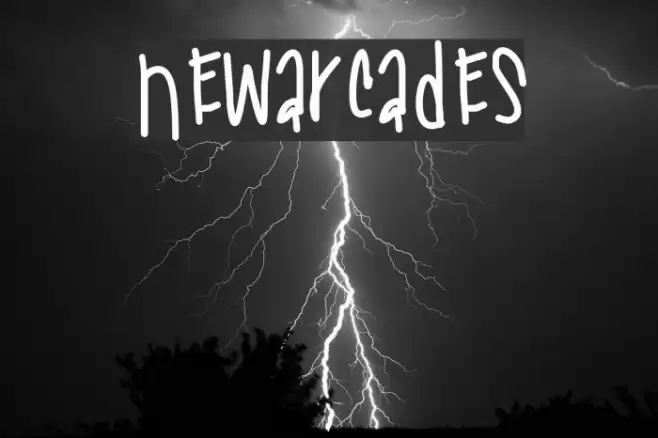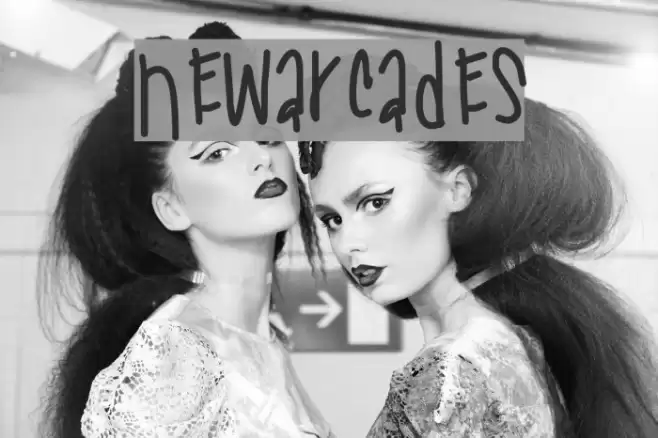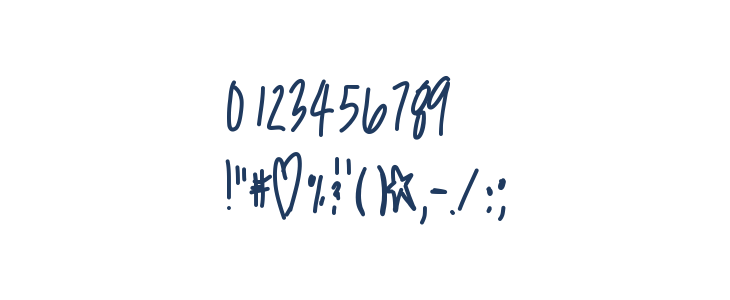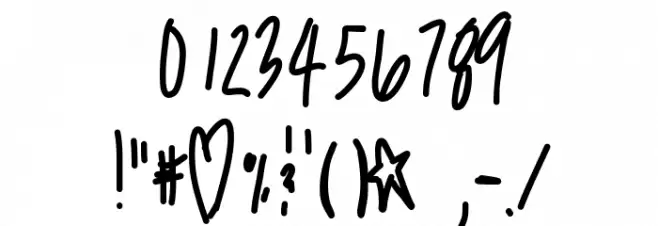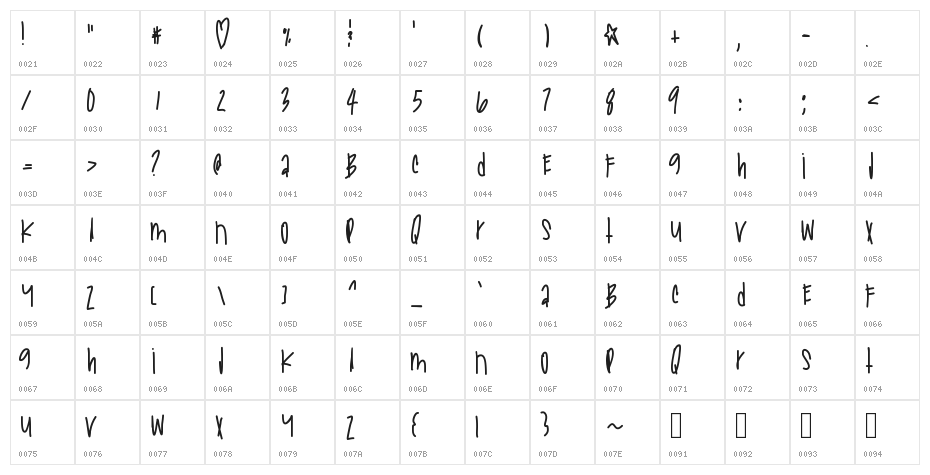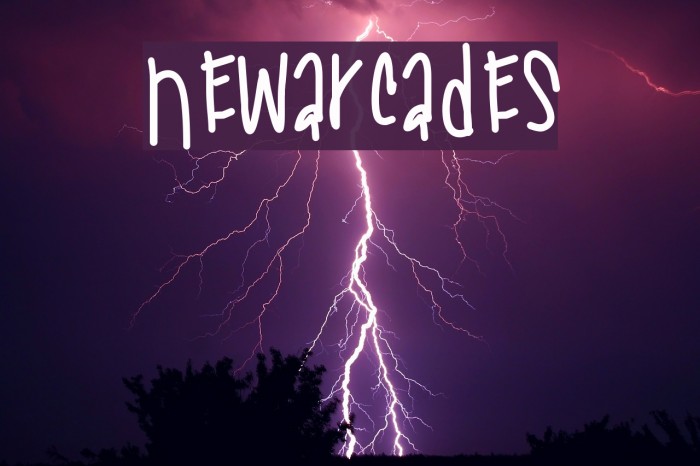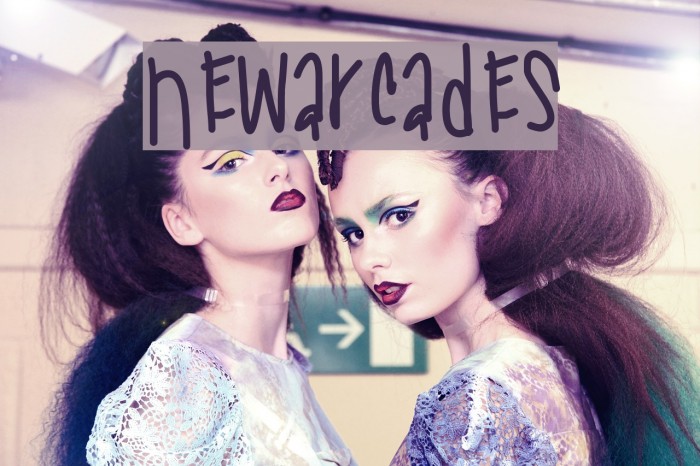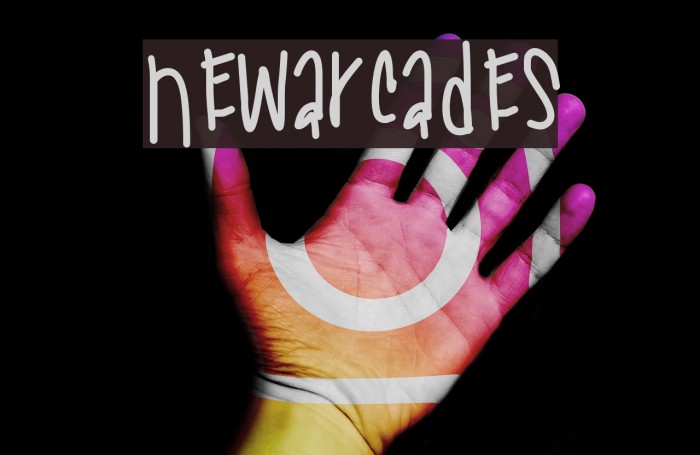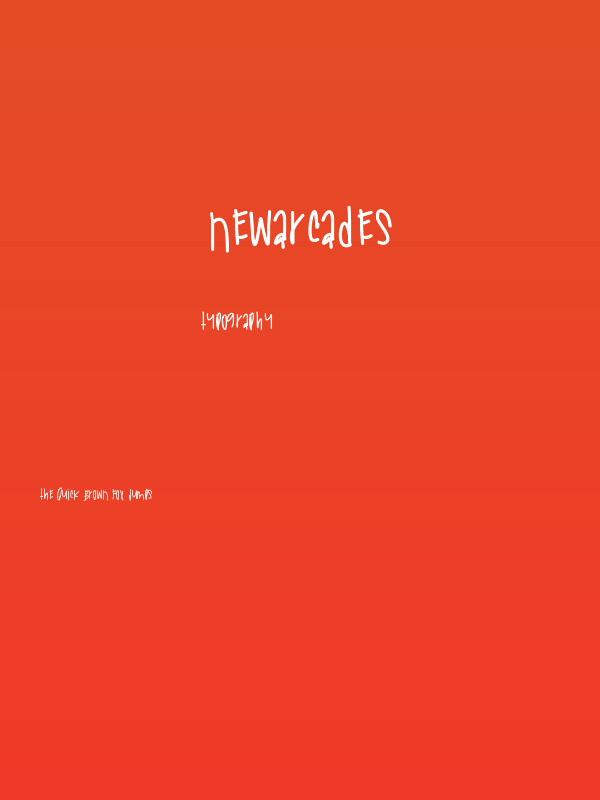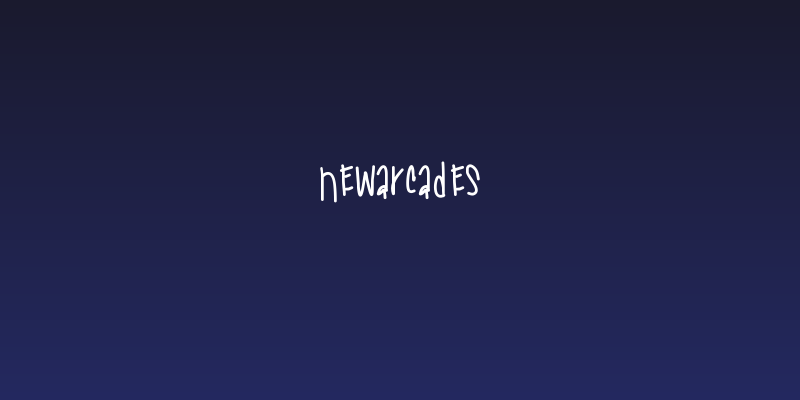
NewArcades Font
NewArcades Description
This font features a playful and casual handwritten style, characterized by its loose, free-flowing strokes and slightly irregular letterforms. The characters exhibit a natural, organic feel, with varying stroke widths that add to its informal charm. The uppercase and lowercase letters maintain a consistent style, while the numerals and special characters complement the overall aesthetic. This font exudes a sense of spontaneity and creativity, making it ideal for projects that require a personal touch.
A playful, casual handwritten font with free-flowing strokes from Uncategorized fonts.
- Proposed Projects: Ideal for greeting cards, personal branding, social media graphics, and creative projects that require a personal touch.
- Overall Style: Casual, Playful
- Use Case: Logos, Headlines, Social media graphics